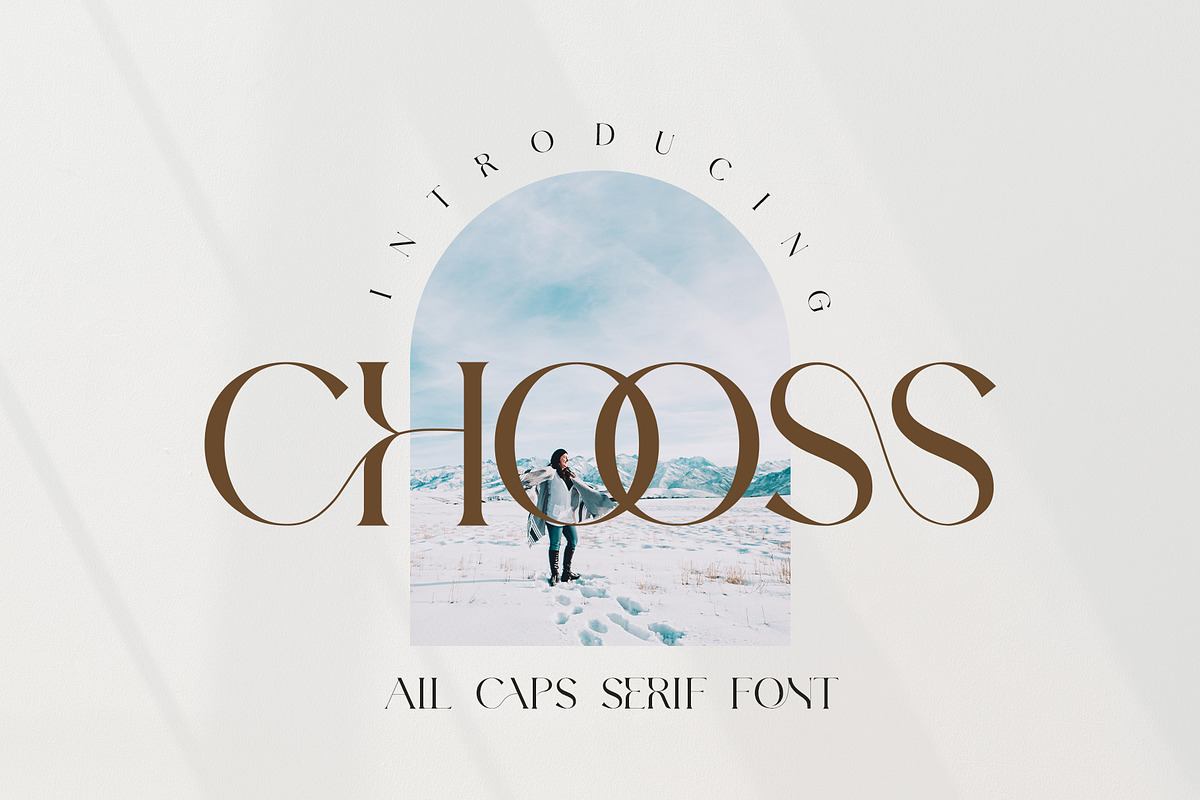
Chooss All Caps Serif Font Free Download
Chooss All Caps Serif Font Free Download is a bold and sophisticated typeface crafted entirely in uppercase for maximum impact. With strong serifs, sharp edges, and a refined structure, Chooss is ideal for logos, headlines, editorial design, packaging, and branding projects that need elegance with authority.
Its all-caps design makes it perfect for creating attention-grabbing titles while maintaining a clean and luxurious feel. Whether you're working on a fashion brand, a high-end product label, or a stylish magazine cover, Chooss delivers timeless charm and powerful presence.